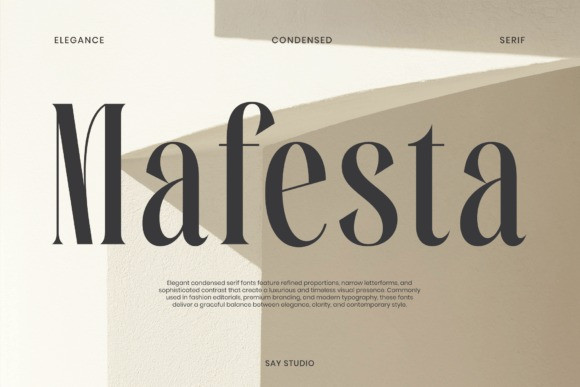
Mafesta Font
Designer: SayStudio
Mafesta Font is an elegant condensed serif typeface that blends timeless sophistication with contemporary refinement. Featuring slender proportions, high-contrast strokes, and graceful curves, this font creates a luxurious visual presence perfect for premium branding, fashion editorials, architecture publications, interior design projects, and upscale packaging. Its distinctive condensed structure maximizes impact while maintaining exceptional readability and elegance.
Whether used for striking headlines, elegant monograms, premium product packaging, or sophisticated marketing materials, Mafesta elevates every design with confidence, style, and timeless appeal. The font’s dramatic contrast and architectural elegance make it a versatile asset for designers seeking a luxurious and memorable typographic statement.